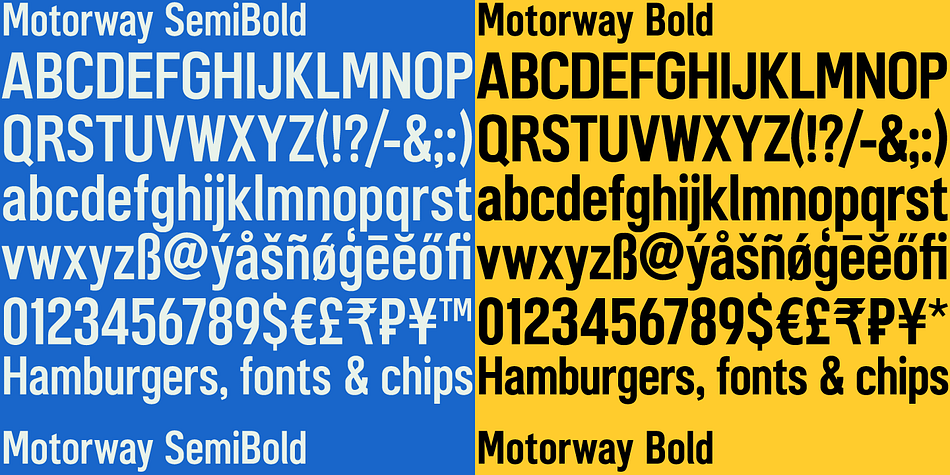
Motorway
Motorway is a sans serif font family. This typeface has six styles and was published by K-Type.
MOTORWAY is the companion typeface to TRANSPORT, the British road sign lettering.
MOTORWAY is the companion typeface to TRANSPORT, the British road sign lettering. The Motorway alphabet was created for the route numbers on motorway signage, and is taller and narrower than the accompanying place names and distances which are printed in Transport.
However, for Motorway Jock Kinneir and Margaret Calvert created only the numbers 0 to 9, the capitals A, B, E, M, N, S and W, ampersand, slash, parentheses and a comma. So, although the lettering made its first appearance on the Preston bypass in 1958, K-Type Motorway is the first complete typeface and contains all upper and lower case letters, plus a full complement of punctuation, symbols and Latin Extended-A accented characters.
As with the Transport alphabet the starting point was Akzidenz Grotesk, Motorway taking inspiration from condensed versions. Changes were mainly driven by a quest for legibility, resulting in some reduced contrast between horizontal and vertical strokes, and Gill-esque straight diagonal limbs on the 6 and 9, and high vertex for the M.
Kinneir and Calvert designed the limited range of characters in two weights; a SemiBold ‘Permanent’ weight for use as white letters on blue motorway signs, and a Bold ‘Temporary’ weight for heavier black letters on yellow non-permanent signage.
In addition to creating full fonts in both original weights, the K-Type family adds a new Regular weight, plus a set of italics, completing a highly usable condensed typeface which, while rooted in history, is fully functional for both print and web usage. The K-Type fonts are spaced and kerned normally, simply increase the tracking to recapture the generous spacing of motorway signage.